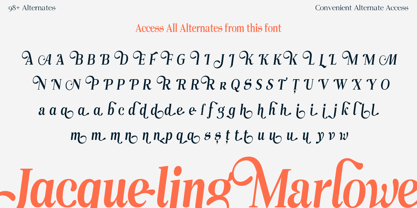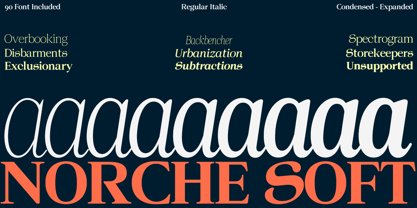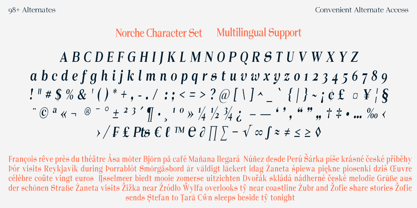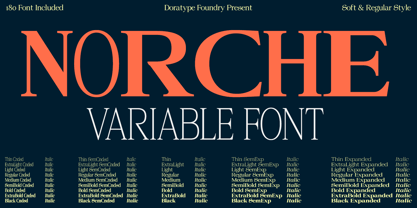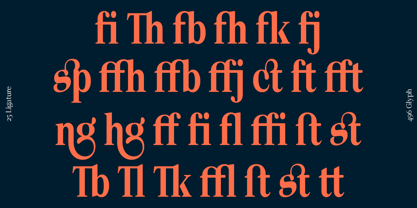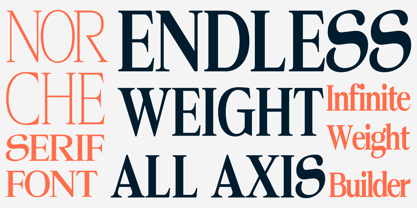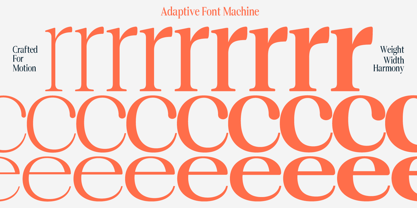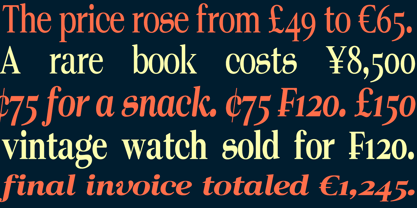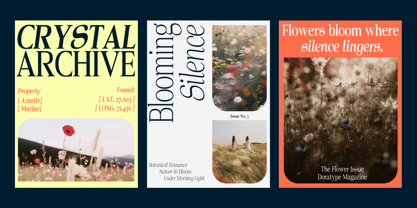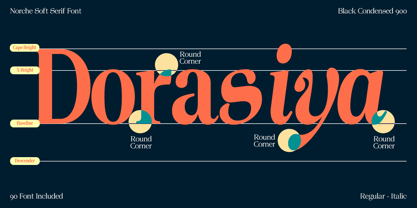
Norche
by Dora Typefoundry
The Norche Font Family was designed by Zahratul Laila and published by Dora Typefoundry. Norche contains 112 styles. More about this family
Norchie is a modern serif font family that blends classic proportions with a contemporary touch. Designed with subtle contrast, elegant letterforms, and clean serif details, it conveys a sense of luxury and professionalism while ensuring excellent readability across various design applications.
Available in 180 styles—including Condensed, Semi-Condensed, Regular, Semi-Expanded, and Expanded widths, each with corresponding italics—Norchie offers exceptional versatility for branding, editorial work, product packaging, logos, fashion, and marketing materials that require a premium, sophisticated look.